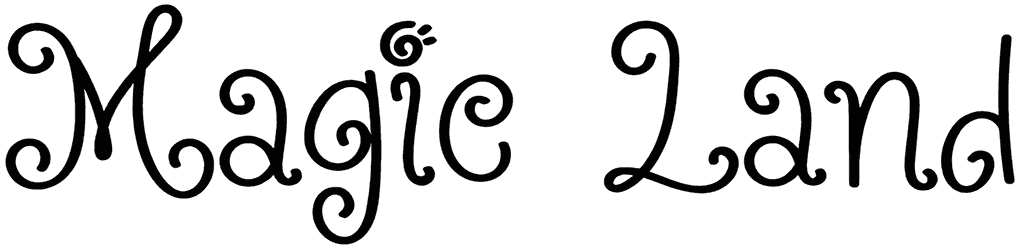
Magic Land Font
There is nothing more enchanting and whimsical than a curly font. Magic Land font features cute decorative swashes and smooth thin lines exactly like delicious spaghetti. It will add a fun, adventurous feel to your work that makes everyone amused and happy.
This magic font has the potential to become your favorite. You can use it to design cooking books, animation titles, food packaging, kids’ toys, video games, and much more.
Magic Land is a whimsical and quirky handwritten font. Add this adaptable and informal handwritten font to each of your creative ideas and notice how they come to life.